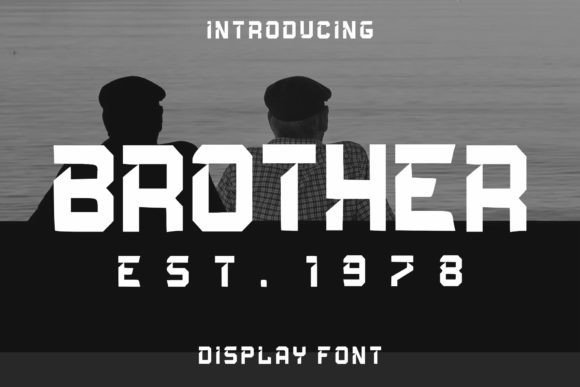
Enter the Brother Font, a modern and assertive racing styled display font that’s guaranteed to make a statement. Whether you’re working on a bold campaign, a sleek website, or a striking graphic, this font has the potential to take your design to the next level. With its versatility and edgy vibe, the Brother Font is an incredible asset to any designer’s library.
Key Features of Brother Font
- Unique Characteristics: Brother Font features a unique blend of modern and traditional design elements, with subtle nuances and flair that set it apart from other fonts.
Designer Review: Brother Font
Brother Font is an interesting addition to the world of typography, offering a unique blend of traditional and modern elements. Here are some of its notable features: ✨
- Customizable: The font can be easily modified to suit specific design needs, making it a versatile option for various projects.
- Legible: Despite its unusual design, the font remains legible even at smaller sizes, which is a testament to its usability.
- Unique character: The font’s distinctive look adds a touch of personality to any design, setting it apart from more generic fonts.
- Not ideal for body text: While the font is great for headlines or titles, it may not be the best choice for large blocks of body text, where legibility is crucial.
Overall, Brother Font is a great option for designers looking to add some personality to their work. While it may not be suitable for every project, its unique character and customizable nature make it a valuable addition to any font collection.
For the best results, use Brother Font in headings and titles to create a unique and recognizable brand identity.
Q: What is the minimum font size recommended for Brother Font?
For optimal readability, we recommend using Brother Font at a minimum size of 12 points. This ensures that the font remains clear and legible, even at smaller sizes. However, you can experiment with different font sizes to achieve the desired aesthetic for your design project.